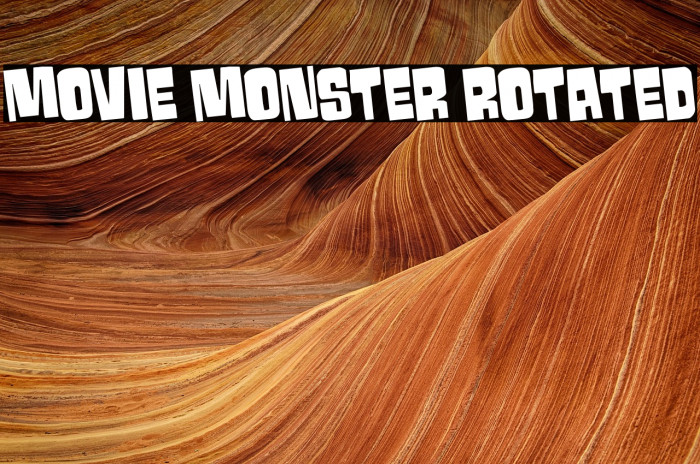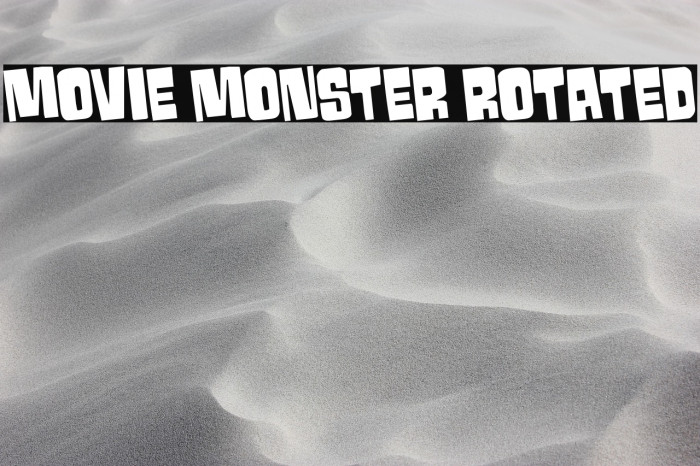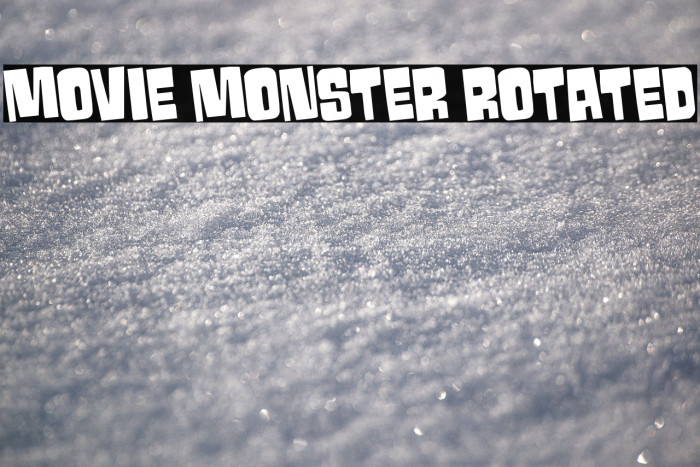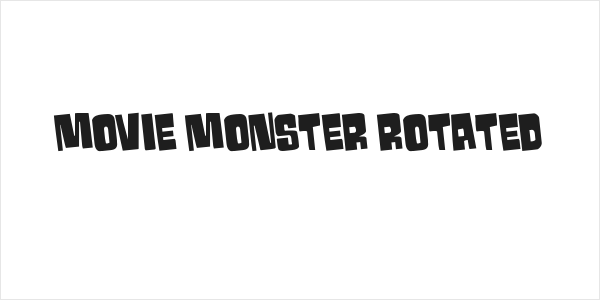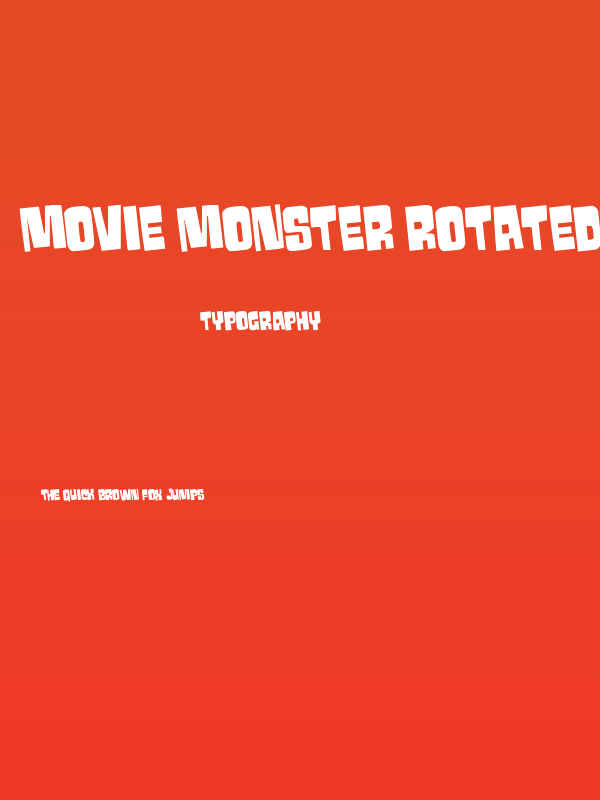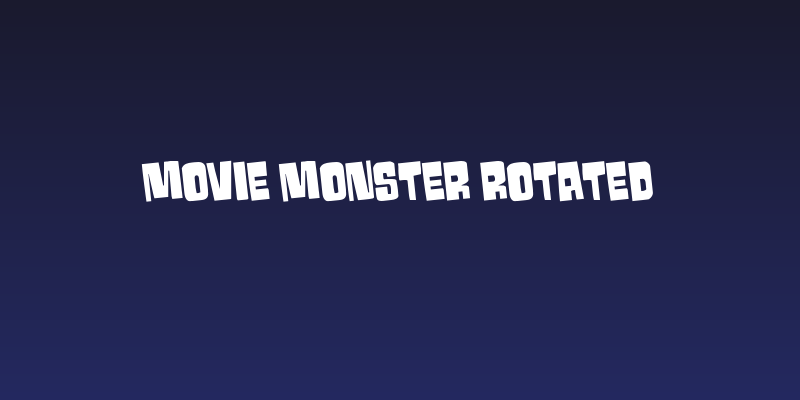
Movie Monster Rotated Font
Movie Monster Rotated Description
This font features a bold and impactful design with thick, blocky letters that convey a sense of strength and intensity. The characters have a slightly irregular, jagged edge, adding a dynamic and energetic feel. The uppercase and lowercase letters maintain a consistent weight, creating a cohesive look. The numbers and special characters follow the same bold style, ensuring uniformity across all text elements. This font's unique style makes it ideal for projects that require a strong visual presence.
| Proposed Projects | Ideal for movie posters, video game covers, Halloween-themed events, or any project needing a bold, eye-catching typeface. |